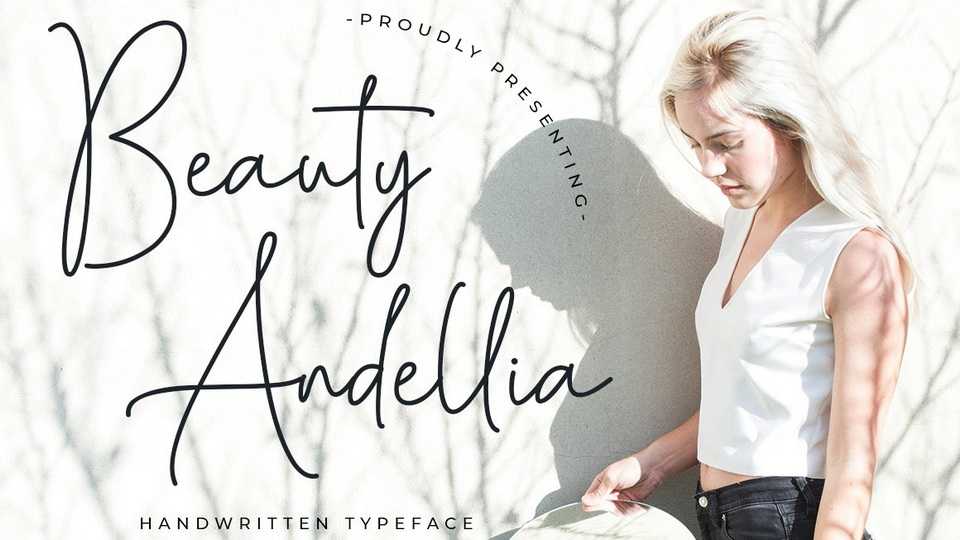
Download Beauty Andellia font, a stunning signature typeface with a cool twist, light and fun script. The font is the ideal typeface for adding a personal touch to any design project